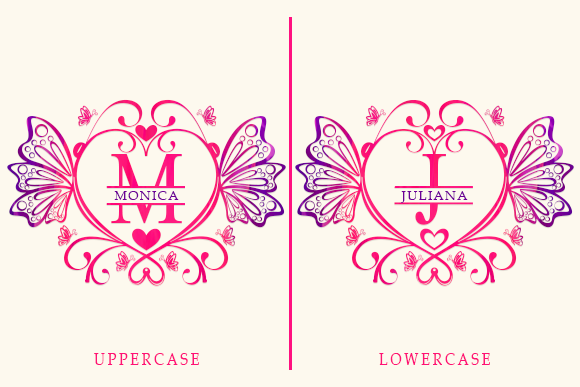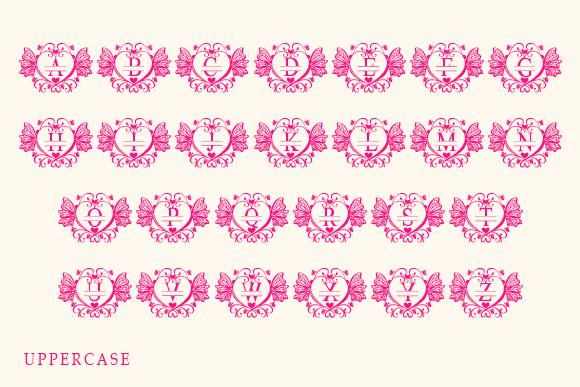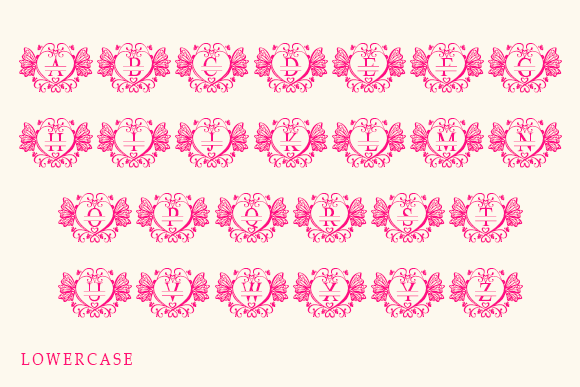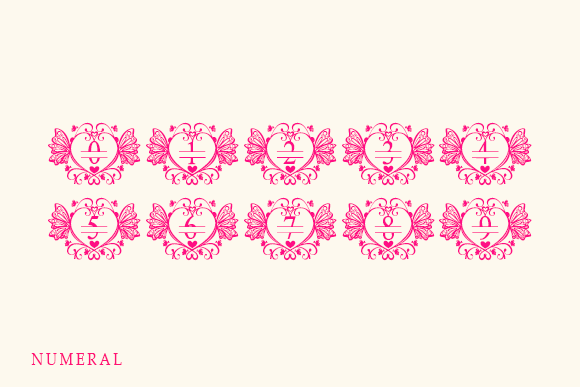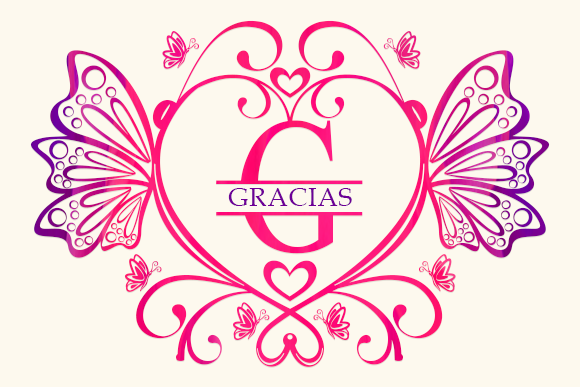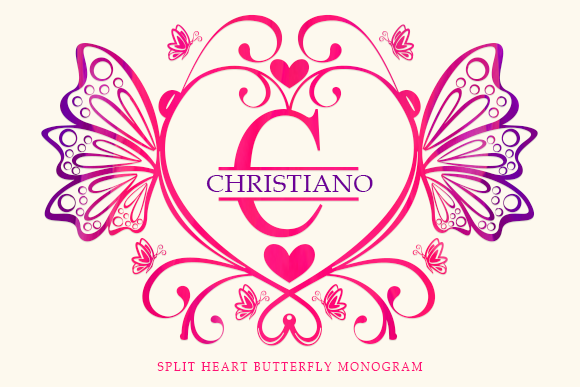
Cristiano Font: Elevate Your Designs with Elegance and Charm
Are you looking for a font that exudes elegance, sophistication, and a touch of whimsy? Look no further than Cristiano Font, a stunning decorative font that is sure to capture your heart. With its lovely ornaments and authentic feel, Cristiano Font is the perfect choice for designers and crafters seeking to add a touch of luxury to their projects.
What is Cristiano Font?
Cristiano Font is a beautifully crafted decorative font that features intricate ornaments and a unique, elegant style. Its authentic feel makes it perfect for a wide range of design applications, from wedding invitations and stationery to social media posts and greeting cards. Whether you’re a professional designer or a crafty DIY enthusiast, Cristiano Font is sure to inspire your creativity and help you create stunning visual content.
Key Features of Cristiano Font
- Elegant and Decorative: Cristiano Font boasts a sophisticated, elegant style that is perfect for designs that require a touch of luxury and refinement.
- Lovely Ornaments: The font features beautiful ornaments that add a touch of whimsy and charm to any design.
- Authentic Feel: Cristiano Font has an authentic, vintage feel that makes it perfect for designs that require a classic, timeless look.
- Versatile: The font is suitable for a wide range of design applications, from wedding invitations and stationery to social media posts and greeting cards.
Uses for Cristiano Font
Cristiano Font is an incredibly versatile font that can be used for a wide range of design projects. Here are some ideas to get you started:
- Wedding Invitations: Create stunning wedding invitations that set the tone for a beautiful, elegant celebration.
- Stationery: Add a touch of luxury to your stationery with Cristiano Font, perfect for business or personal use.
- Social Media Posts: Elevate your social media posts with Cristiano Font, making them stand out in a crowded feed.
- Greeting Cards: Create beautiful, eye-catching greeting cards for special occasions, such as birthdays, anniversaries, and holidays.
Tips for Using Cristiano Font
To get the most out of Cristiano Font, here are some tips to keep in mind:
- Pair with Simple Backgrounds: Let Cristiano Font take center stage by pairing it with simple backgrounds that don’t compete for attention.
- Experiment with Colors: Try out different color combinations to find the perfect match for your design and the font.
- Use for Headlines and Titles: Cristiano Font is perfect for headlines and titles, adding a touch of elegance and sophistication to your design.
Cristiano Font is a truly special font that is sure to capture your heart. With its elegant style, lovely ornaments, and authentic feel, it’s the perfect choice for designers and crafters seeking to add a touch of luxury to their projects. Whether you’re creating wedding invitations, stationery, social media posts, or greeting cards, Cristiano Font is sure to elevate your designs and make them stand out. So why wait? Fall in love with Cristiano Font today and take your designs to the next level!